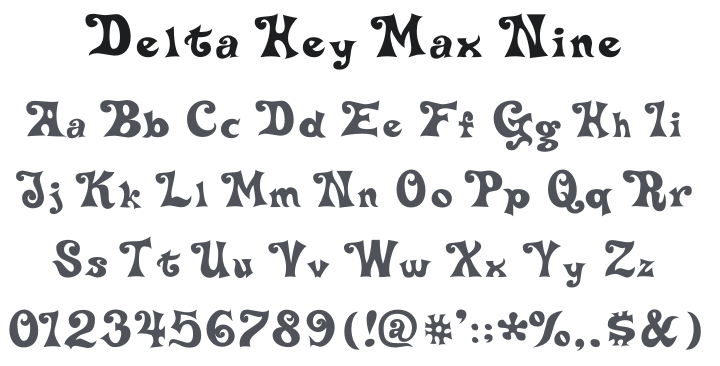
Delta Hey Max Nine Font
About Delta Hey Max Nine
Delta Hey Max Nine is a wacky, retro curly display typeface with exaggerated loops and swirling letterforms that feel deliberately low-effort and gleefully unserious. Its bouncy, carefree character radiates 1960s–70s cartoon nostalgia. Perfect for quirky posters, comedy branding, retro party invitations, novelty t-shirts, and any design that wants to communicate a lighthearted, don't-take-me-seriously attitude.